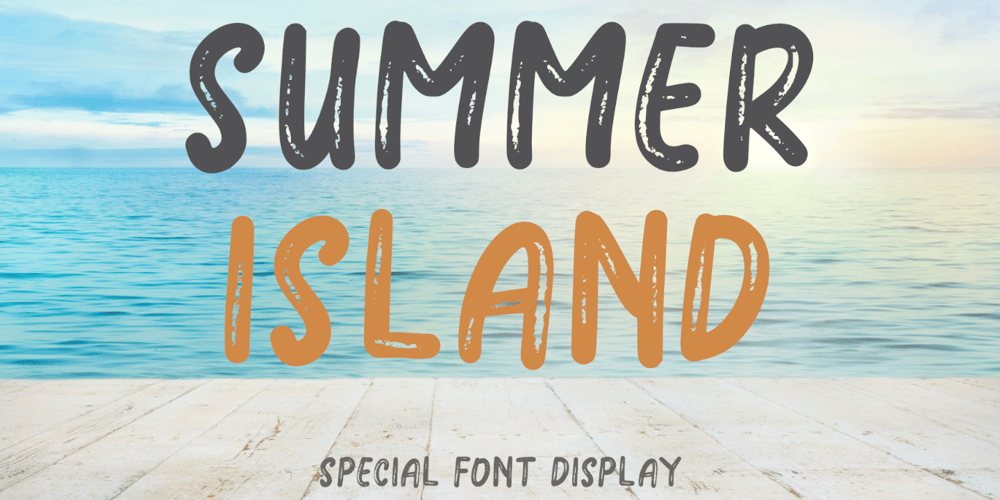
Summer Island Font Family was designed by Isroni Yoga Prasetya and published by Yoga Letter. Summer Island contains 1 styles and family package options. “Summer Island” is a unique and elegant display font. This font is equipped with uppercase, lowercase, numerals, multilingual support, and punctuation. Very suitable for stickers, banners, posters, social media, summer, spring, teacher, back to school, father’s day, mothers day, and others.